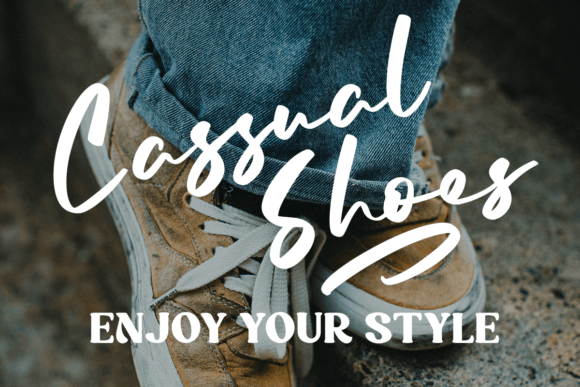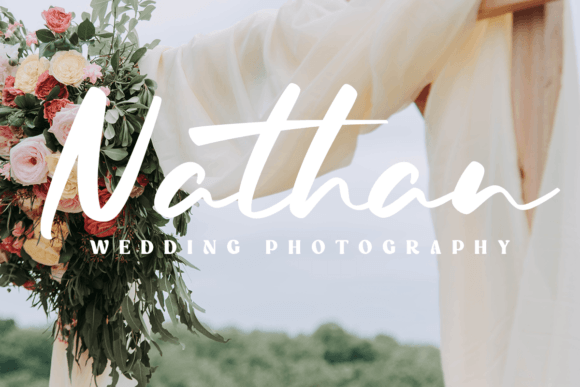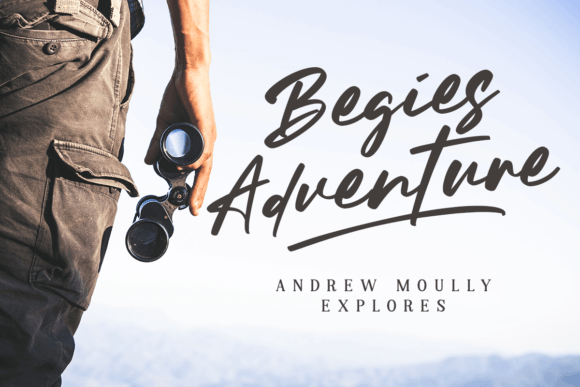
Introduction to Mellodia Font
Have you ever been working on a creative project, pouring your heart and soul into it, only to be stuck on the perfect font to bring it all together? The search for the perfect font can be a daunting task, but what if you stumbled upon one that’s not only aesthetically pleasing but also versatile and fun to use?
Enter the Mellodia Font, a beautifully designed handwritten font that’s perfect for logos, print projects, invitations, T-shirts, branding, and many more. This font has the potential to elevate your creative ideas to new heights, making it a valuable resource for designers of all levels.
With its PUA encoded features, accessing all of the glyphs and swashes is a breeze, allowing you to create unique and eye-catching designs with ease. Whether you’re working on a free download project or a high-end design, the Mellodia Font is sure to be a game-changer.
Key Features of Mellodia Font
- High-quality, professional font suitable for various creative projects
- Features a transparent background, allowing for easy layering and customization
- Designed with a high-resolution (300 DPI) for crisp and clear display in various sizes
- Perfect for use in digital and print media, including logos, typography, and graphics
- Includes a range of font styles and weights to suit diverse design needs
Honest Review: Mellodia Font
I recently had the chance to work with the Mellodia Font, and I must say, it’s a fantastic design resource. I was looking for a high-quality font to add a touch of elegance to my creative project, and Mellodia Font did not disappoint. ✨
Overall, I’m really impressed with the Mellodia Font. It’s a great addition to any designer’s toolkit, and I would definitely recommend it for personal or small-scale projects. ⚠️ Just be aware of its limitations, and you’ll be all set for a beautiful and professional-looking design.
Tips for Getting the Most Out of Mellodia Font
Use the Mellodia Font with a transparent background to create a seamless design. Experiment with different font sizes and styles to add depth and visual interest to your design resource.
The Mellodia Font is perfect for designing wedding invitations, business cards, and other creative projects that require a touch of elegance and sophistication. You can also use it as a design resource for free download and edit as needed.
Yes, Mellodia Font supports transparent backgrounds, making it an ideal design resource for creating visually appealing and modern designs. This feature allows you to easily integrate the font with other design elements, such as images and graphics, to create a cohesive look.